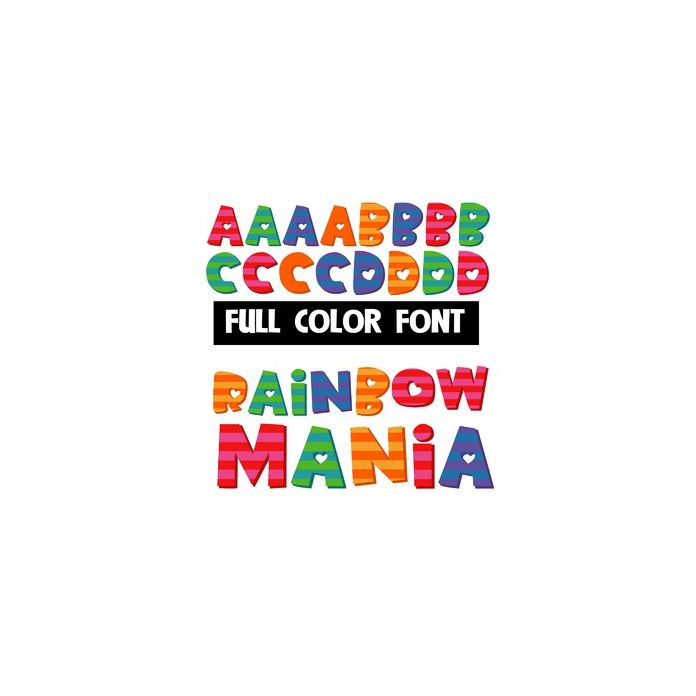
This full-color font features bright, rainbow-like coloring on playful lettering with stripes. Alt upper and lowercases are available through your system's character map. This font works best for titles, displays, posters and more. Please note color fonts will show as black in non compatible programs. This font type is compatible with Silhouette Studio.